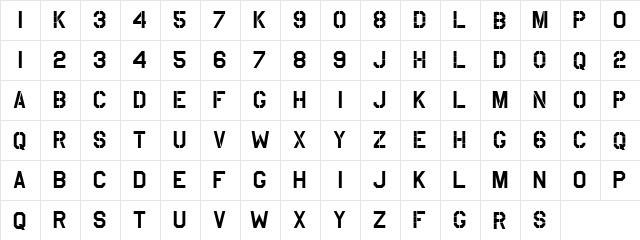
USAAF_Stencil Font Preview
Design Context for USAAF_Stencil Typeface
USAAF_Stencil has the rough pragmatism of spray-painted stencil signage, adding a raw, street-level authenticity to designs.
A strong choice for packaging that needs edge, warehouse aesthetics, and rough-and-ready visual identities.
Pro Tip: Use USAAF_Stencil at large sizes on packaging, posters, or apparel where the stencil cutaways read clearly. Avoid small sizes where those gaps become visual noise.